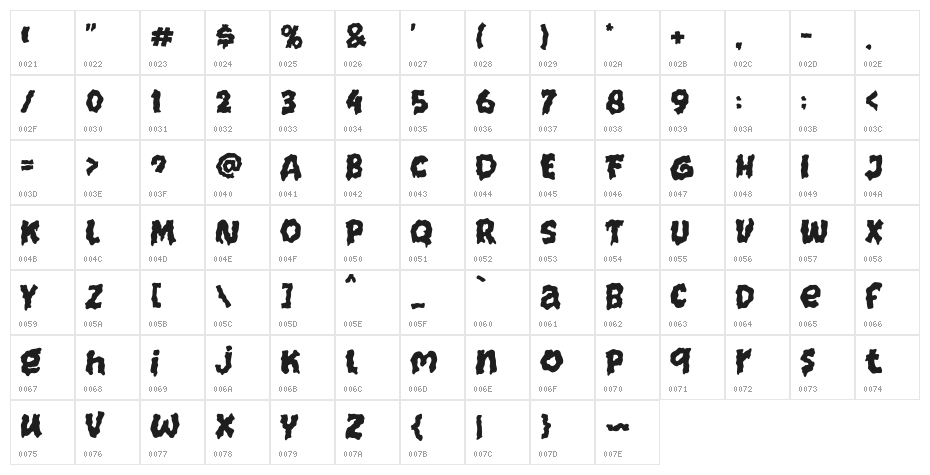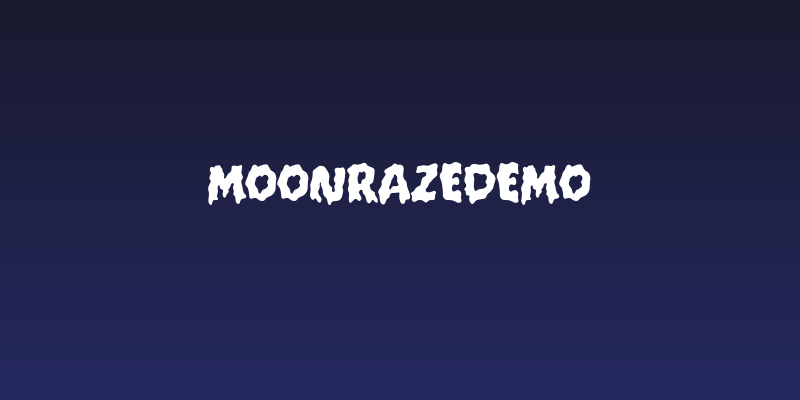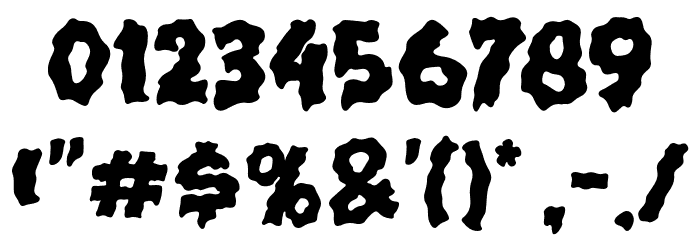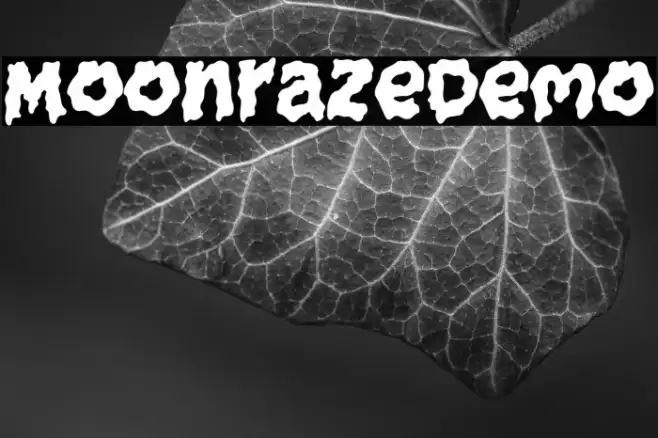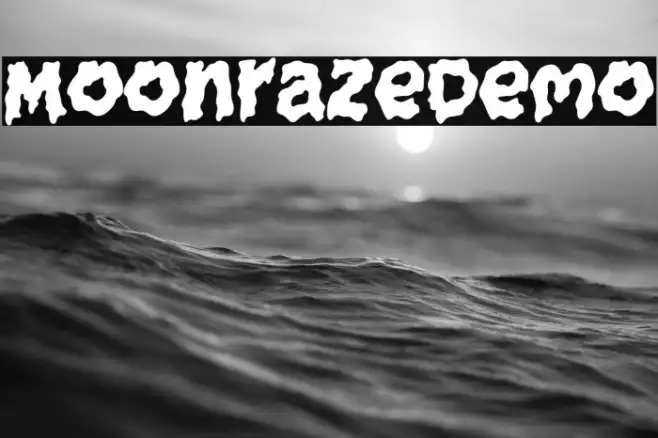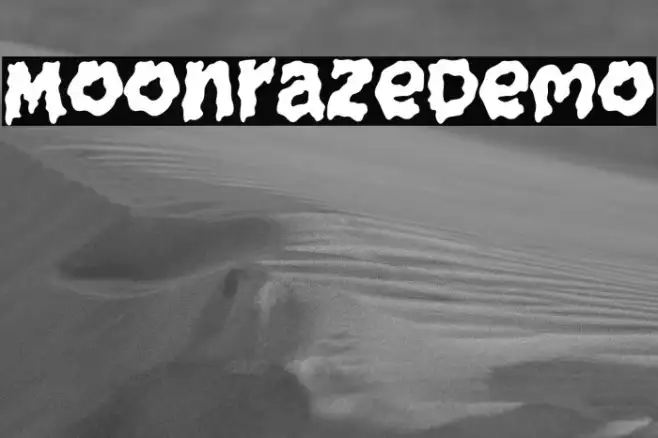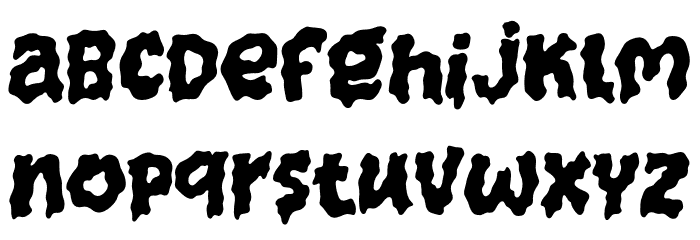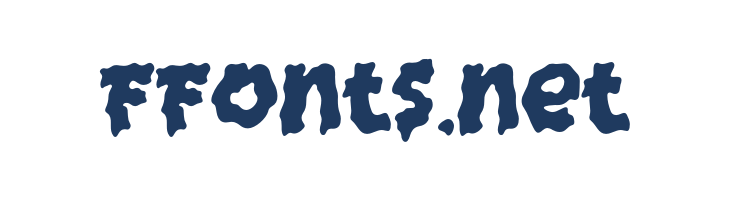
MoonrazeDemo Font
MoonrazeDemo Description
This font features a bold and playful design with a unique, irregular outline that gives it a dynamic and energetic appearance. The characters are heavily stylized, with a chunky, organic feel that suggests movement and fluidity. The font's boldness makes it stand out, while the irregular edges add a touch of whimsy and creativity. It's perfect for projects that require a fun and eye-catching typeface, such as posters, children's books, or party invitations. The font maintains a consistent weight throughout, ensuring readability despite its decorative style.
| Overall Style | Playful, Energetic, Creative |
| Proposed Projects | Ideal for posters, children's books, party invitations, and creative branding. |